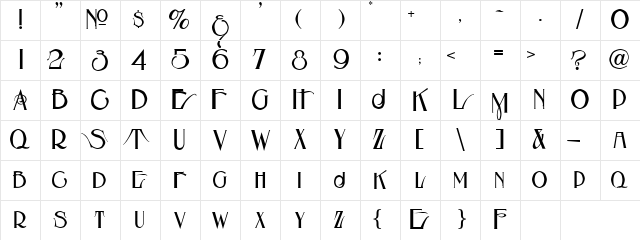
Complete LHF Eccentric French Light glyph index. Displaying only characters natively supported by LHF Eccentric French Light font.
LHF Eccentric French is a composed and adaptable typeface that performs quietly and consistently across a wide range of design contexts. Its slender proportions lend an understated elegance to any composition.